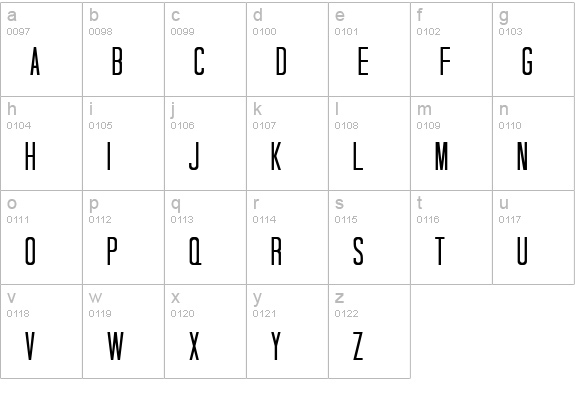
Tall Dark And Handsome Condensed Font Details
Tall Dark And Handsome Condensed is a distinctive, condensed-width variant in the Tall typeface family \xE2\x80\x94 well suited to design and typography projects.
Introducing Tall Dark And Handsome Condensed font, a striking and sophisticated typeface that exudes timeless elegance and modern flair. This font effortlessly combines tall letterforms with a dark and bold aesthetic, resulting in a truly captivating design that commands attention in any setting. With its condensed proportions, this font is perfect for projects that require a sleek and space-saving design, while still maintaining legibility and impact. Whether used for headlines, titles, posters, or branding materials, Tall Dark And Handsome Condensed font will effortlessly elevate your creative endeavors to new heights. The carefully crafted curves and sharp angles of this font create a harmonious balance between strength and grace, making it an ideal choice for a wide range of applications. From high-end fashion editorials to luxury brand identities, this font adds a touch of sophistication and refinement to any project. And the best part? Tall Dark And Handsome Condensed font is completely free. That's right, this exceptional typeface is freely available to download at FontsMarket.com. So you can add this remarkable font to your design arsenal without breaking the bank. Take advantage of the versatility and allure of Tall Dark And Handsome Condensed font and let your creativity soar. Whether you're a seasoned designer or just starting your creative journey, this font offers endless possibilities to make your designs stand out from the crowd. So why wait? Head over to FontsMarket.com and download Tall Dark And Handsome Condensed font today. Unleash the power of this stunning typeface and elevate your design projects to new levels of excellence.